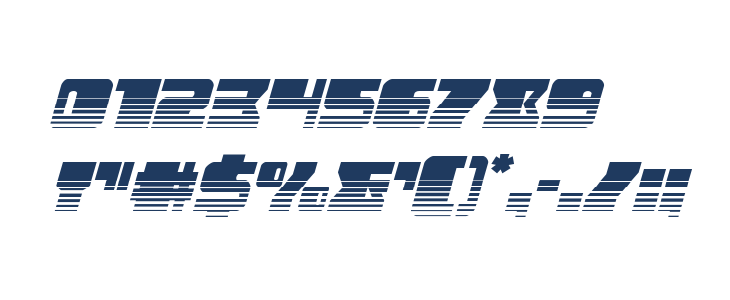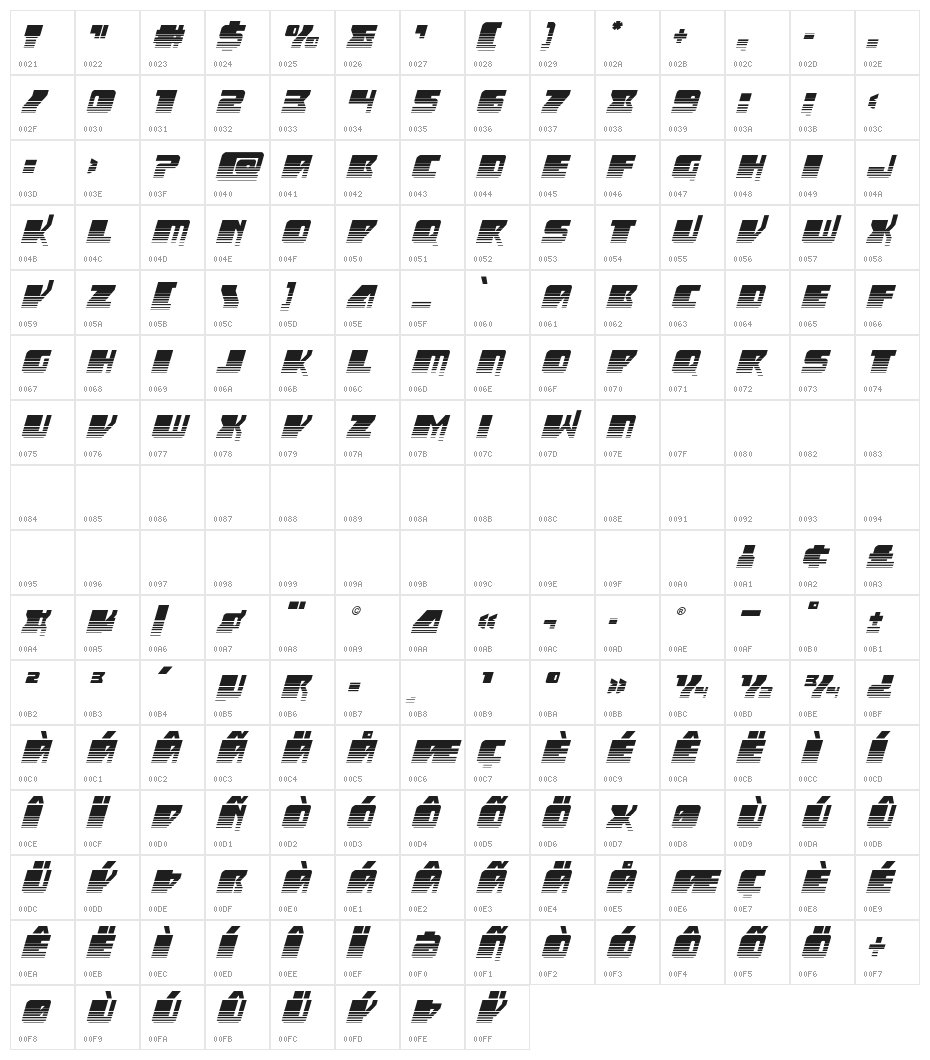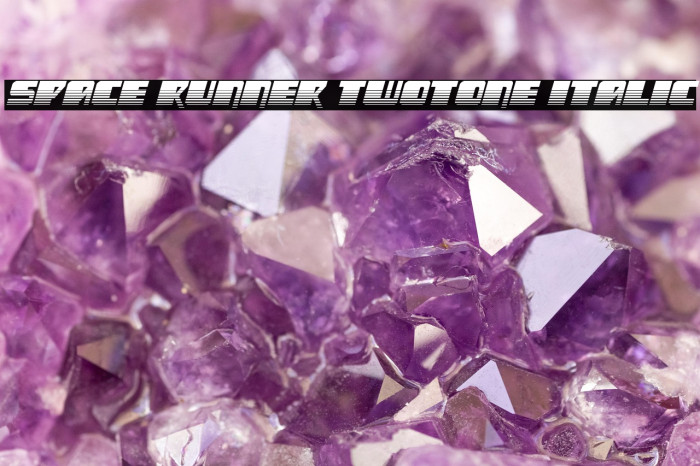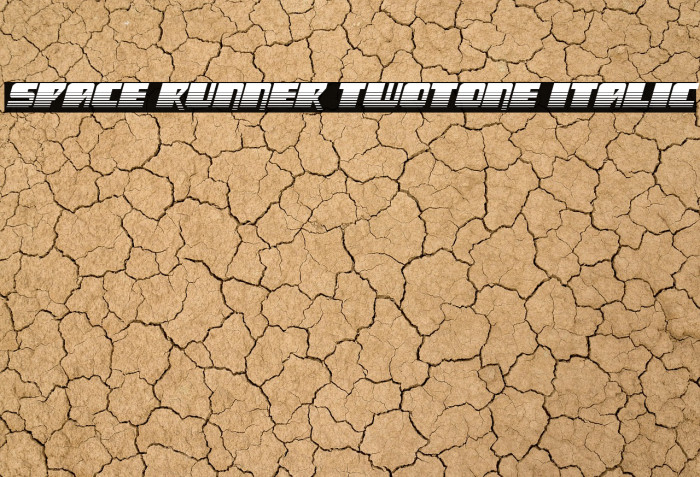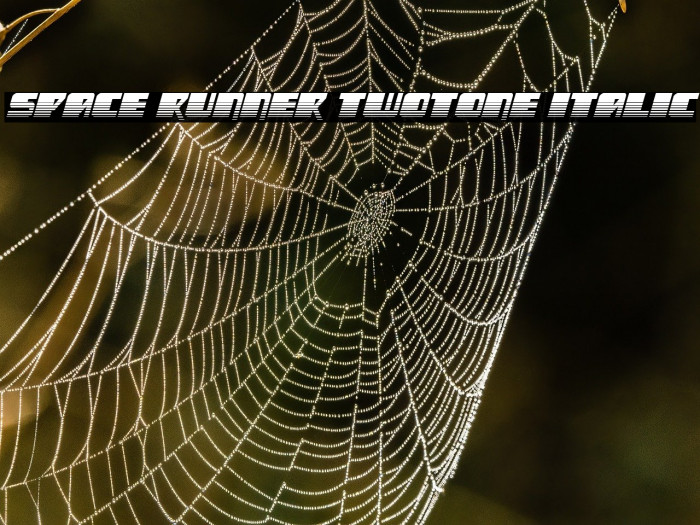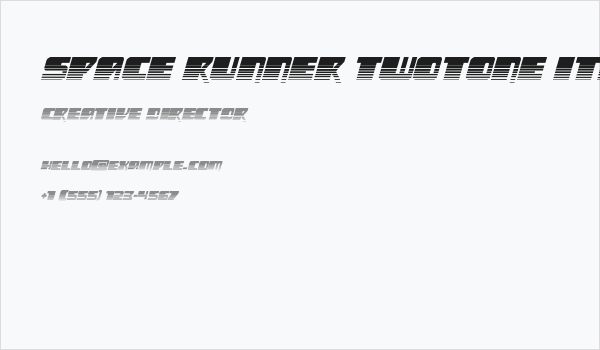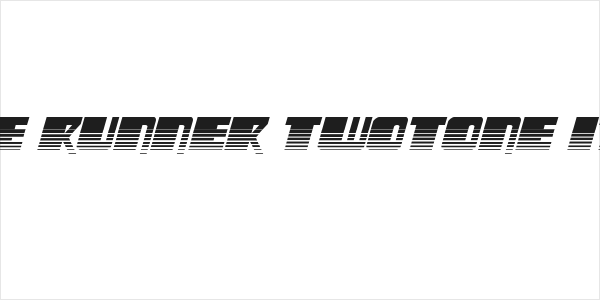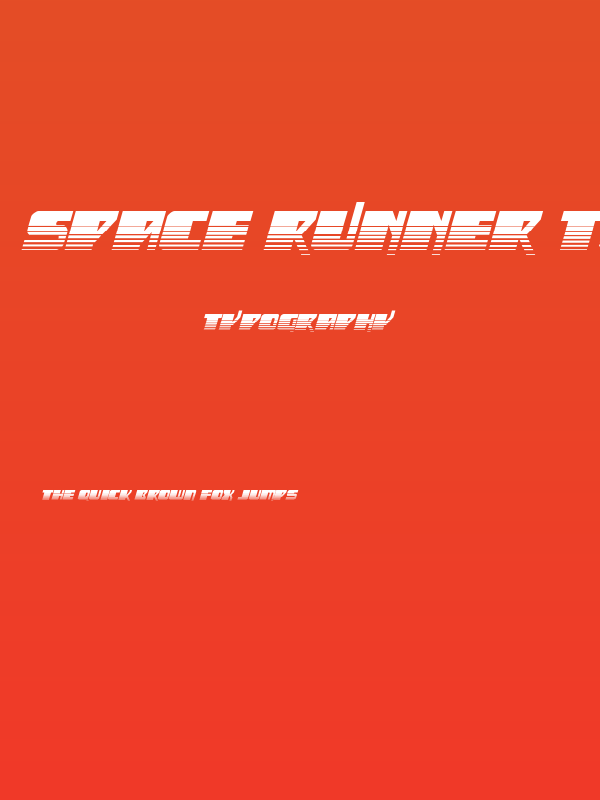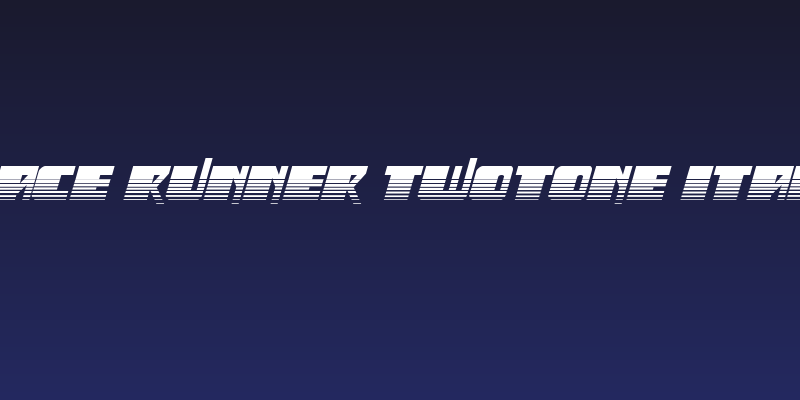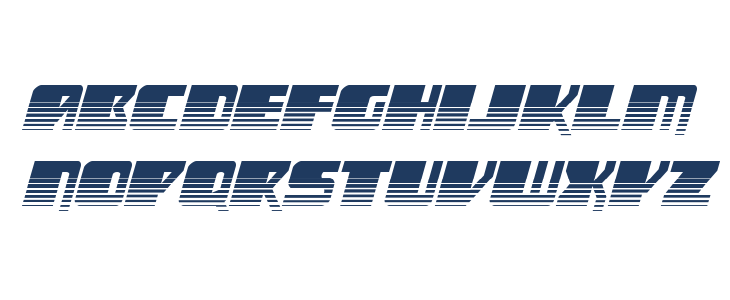
Space Runner Twotone Italic Font
Space Runner Twotone Italic Description
This dynamic and futuristic typeface features a bold, italicized style with a distinctive two-tone design. The characters are constructed with horizontal lines that create a sense of motion and speed, reminiscent of racing stripes or digital displays. The font's angular and geometric shapes give it a modern and edgy appearance, making it ideal for projects that require a high-tech or sci-fi aesthetic. The consistent slant across all characters enhances its italic nature, while the bold weight ensures strong visibility and impact.
Overall StyleFuturistic, Dynamic
Proposed ProjectsIdeal for sci-fi movie posters, video game titles, tech company logos, and futuristic branding materials.